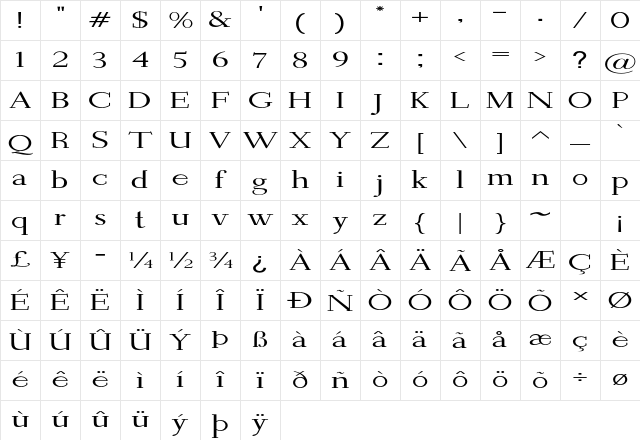
Wentworth Extra-expanded Regular
Style: Extra-expanded Regular
Wentworth Family
Wentworth Extra-expanded Regular
Complete Wentworth Extra-expanded Regular glyph index. Displaying only characters natively supported by Wentworth Extra-expanded Regular font.
Design Context for Wentworth
Wentworth is a composed and adaptable typeface that performs quietly and consistently across a wide range of design contexts.